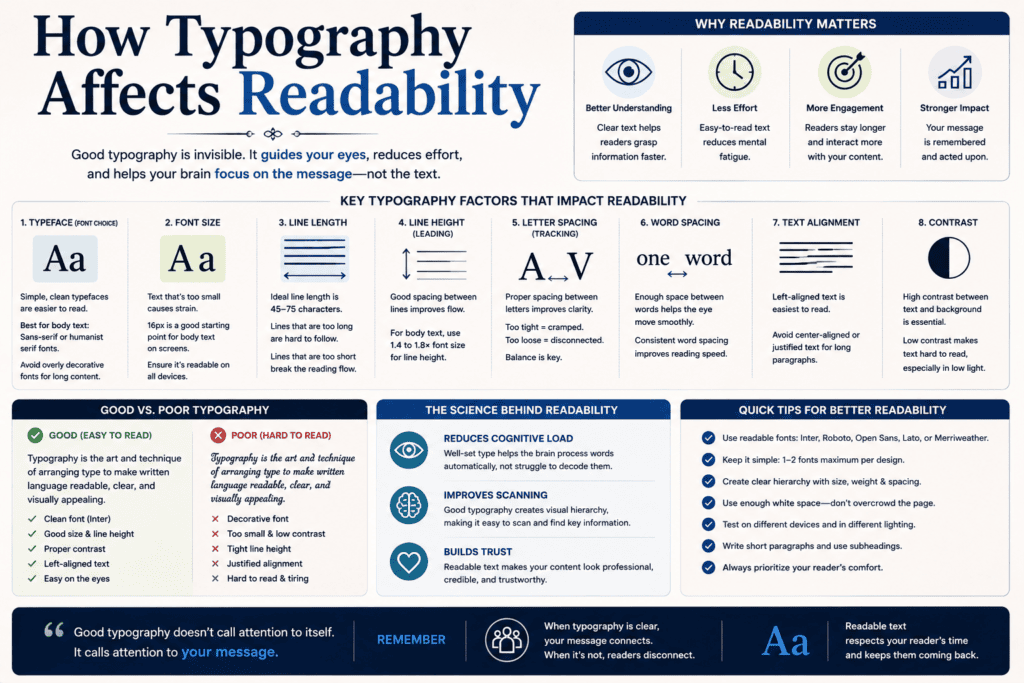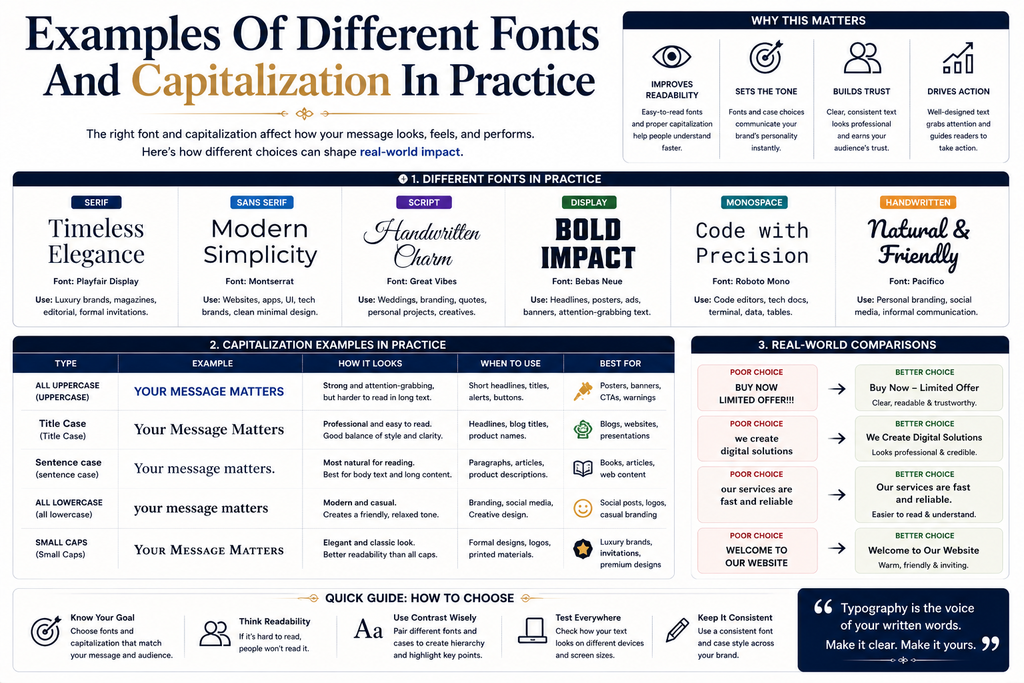
Typography shapes how readers encounter content before meaning fully settles. In my work, the right typeface, font size, spacing, and contrast can reduce visual effort, helping the reader move through text with greater clarity and confidence.
Readability is not about attractive letters; it depends on how legibility, line length, line spacing, and text alignment cooperate. Good typography creates an intuitive rhythm, so people can understand words without unnecessary pauses, clutter, or strain.
Typefaces For Body Copy
Choosing a typeface for body copy is less about fashion than reading. In practice, I favor readable forms with clear character shapes, moderate font size, and enough line spacing to keep attention steady across longer passages.
For web and print, I test font families, letter spacing, line length, text alignment, and contrast together, because typographic changes can disrupt reading rhythm. This broader check often reveals weaknesses that choosing a typeface alone misses.
Legibility Vs. Readability
Legibility concerns whether characters remain distinct, while readability describes how comfortably a reader can process text. I assess typeface, spacing, contrast, and line length together, because character-level clarity does not guarantee effortless reading on screen.
Readability can remain when letters look clear: longer paragraphs, line spacing, weak text alignment, or blocks increase eye fatigue. Comprehension depends on rhythm, so typography work balances character recognition with sustained attention across the page.
Font Size
Choosing the right font size supports legibility because larger font sizes help readers distinguish individual characters quickly. In practice, I adjust size according to viewing distance, screen conditions, and the density of surrounding text content.
However, excessively large fonts can disrupt reading flow and reduce readability when pages become fragmented. I usually reserve larger sizes for headings, while body text stays clear enough to sustain comfortable reading and focused attention.
Letter Spacing And Word Spacing
Careful character spacing prevents nearby letters from blending, while adequate character spacing keeps words distinguishable. I evaluate spacing beside lines of text, because local fixes can look polished yet create uneven rhythm across the paragraph.
I also test appropriate line spacing alongside word spacing; even strong letterforms can feel cramped when vertical and horizontal gaps compete. In my layouts, restrained spacing supports smooth reading without making the page visually fragmented.
Color / Contrast
Strong contrast between text color and background color improves visibility, while bright colors preserve hierarchy without tiring readers. I routinely test combinations at reading size, checking legibility, clarity, and comfort before approving a screen carefully.
Low contrast looks, yet it can weaken readability when text and background become distinguishable. I avoid harsh contrasts that introduce strain or discomfort for passages, so the reader perceives color as support, not an obstacle.
Text Alignment
In practice, left-aligned text gives readers a consistent starting point, which steadies reading flow across paragraphs. I find this especially useful when structure matters, because predictable edges reduce visual searching and keep attention moving smoothly.
Centered text can look elegant, but frequent alignment changes may disrupt reading rhythm. Justified text can create uneven spacing, while short lines complicate scanning; for passages, I prefer stable alignment that supports clarity and comprehension.
Lowercase And All Caps
Lowercase usually creates a reading flow because letterforms retain varied shapes and recognizable patterns. In my practice, continuous body text feels less tiring when lowercase supports quick word recognition, especially across longer passages and screens.
All caps can strengthen emphasis, but passages often slow reading because uniform letter height reduces visual variation. A font choice that reserves capitals for headings, labels, or short phrases usually preserves readability, hierarchy, and attention.
Examples Of Different Fonts And Capitalization In Practice
Comparing serif and sans-serif examples reveals how capitalization changes texture. Times New Roman can feel formal, while Helvetica appears modern; lowercase generally supports paragraphs, whereas capitals create stronger visual signals for brief section headings today.
On a classroom page, lowercase body text can remain approachable, while all caps may clarify labels or compact titles. I often test both with actual readers, checking clarity, spacing, and reading rhythm before finalizing typography.
Typography’s Role In Brand Identity / Perception
I improve readability by pairing clear visibility with adequate character spacing, line length, and dark text on a light background. Consistent headings, generous spacing, and responsive sizing help readers navigate without hesitation or visual fatigue.
What Is The Role Of Color In Legibility And Readability?
In practice, color, text color, and background color establish the contrast needed for comfortable reading. I find accessible combinations especially important, because visual impairments can turn subtle differences into legibility barriers during everyday screen use.